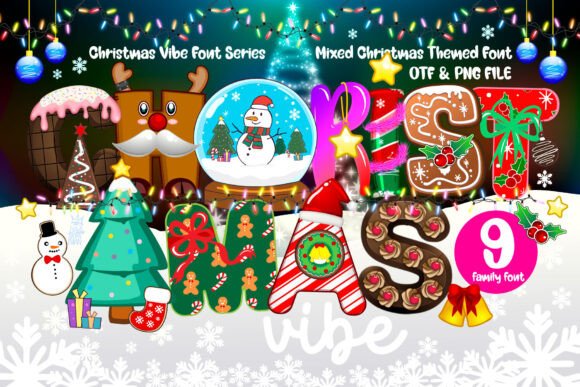
Christmas Vibe Font: Elevate Your Holiday Creations with a Festive Touch
The holiday season is upon us, and with it comes the joy of creating festive and memorable projects. Whether you’re designing holiday cards, crafting whimsical shirts, or bringing a jolly ambiance to your holiday-themed creations, the right font can make all the difference. Introducing Christmas Vibe, a charmingly festive color font bundle that breathes life into all your yuletide creations.
Unleash the Magic of Christmas Vibe
Christmas Vibe is more than just a font – it’s an experience. This delightful color font bundle is designed to bring a touch of festive magic to your holiday projects. With its whimsical and charming design, Christmas Vibe is the perfect choice for anyone looking to create heartwarming holiday cards, captivating crafts, or simply add a dash of holiday cheer to their creations.
The Perfect Choice for Holiday Creations
Whether you’re a designer, crafty DIY enthusiast, or simply someone who loves the holiday season, Christmas Vibe is your go-to choice. This versatile font bundle is perfect for a wide range of projects, including:
- Holiday cards: Create heartwarming and personalized cards for your loved ones.
- T-shirts and apparel: Design whimsical and festive shirts that are sure to spread holiday cheer.
- Crafts and DIY projects: Add a touch of festive magic to your handmade crafts and DIY projects.
- Holiday-themed projects: Bring a jolly ambiance to your holiday-themed projects, from party invitations to festive decor.
Experience the Visual Treat of Christmas Vibe
Christmas Vibe offers a unique and captivating visual experience that’s unlike any other font bundle. With its vibrant colors and whimsical design, this font bundle is sure to elevate your creations and leave a lasting impression. Whether you’re designing for digital or print, Christmas Vibe brings a level of festivity and fun that’s simply unforgettable.
Key Features of Christmas Vibe
So, what makes Christmas Vibe so special? Here are just a few key features that set this font bundle apart:
- Festive and whimsical design: Perfect for holiday projects and creations.
- Color font bundle: Includes a range of vibrant colors to bring your creations to life.
- Versatile: Suitable for a wide range of projects, from holiday cards to DIY crafts.
Tips for Using Christmas Vibe
To get the most out of Christmas Vibe, here are a few tips and tricks to keep in mind:
- Experiment with colors: Don’t be afraid to try out different color combinations to find the perfect look for your project.
- Mix and match: Combine Christmas Vibe with other fonts and design elements to create a unique and eye-catching look.
- Have fun: The most important thing is to have fun and be creative with Christmas Vibe!
Christmas Vibe is more than just a font bundle – it’s a way to bring a touch of festive magic to your holiday creations. With its whimsical design, vibrant colors, and versatility, this font bundle is the perfect choice for anyone looking to create heartwarming and memorable holiday projects. So why wait? Embrace the spirit of the season with Christmas Vibe and make every project a celebration of creativity, color, and Christmas cheer!